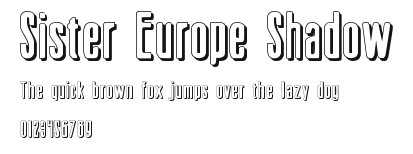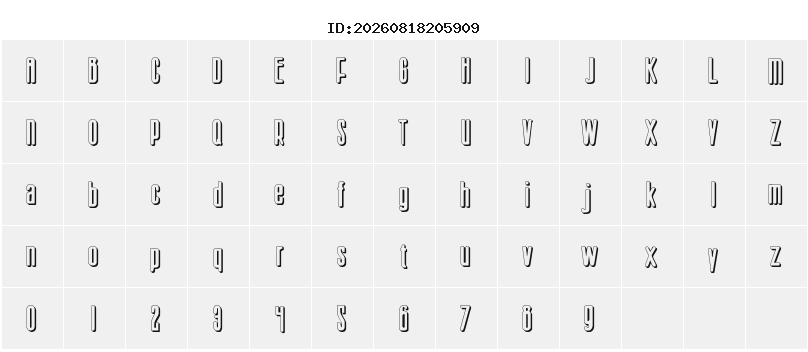
• Font Name: Sister Europe Shadow
• Font Style: Shadow
• Full Font Name: Sister Europe Shadow
About Sister Europe Shadow.ttf
Sister Europe Shadow.ttf is a modern, elegant sans-serif font designed for ultimate readability and visual harmony. Perfect for branding, headlines, web design, and print materials.